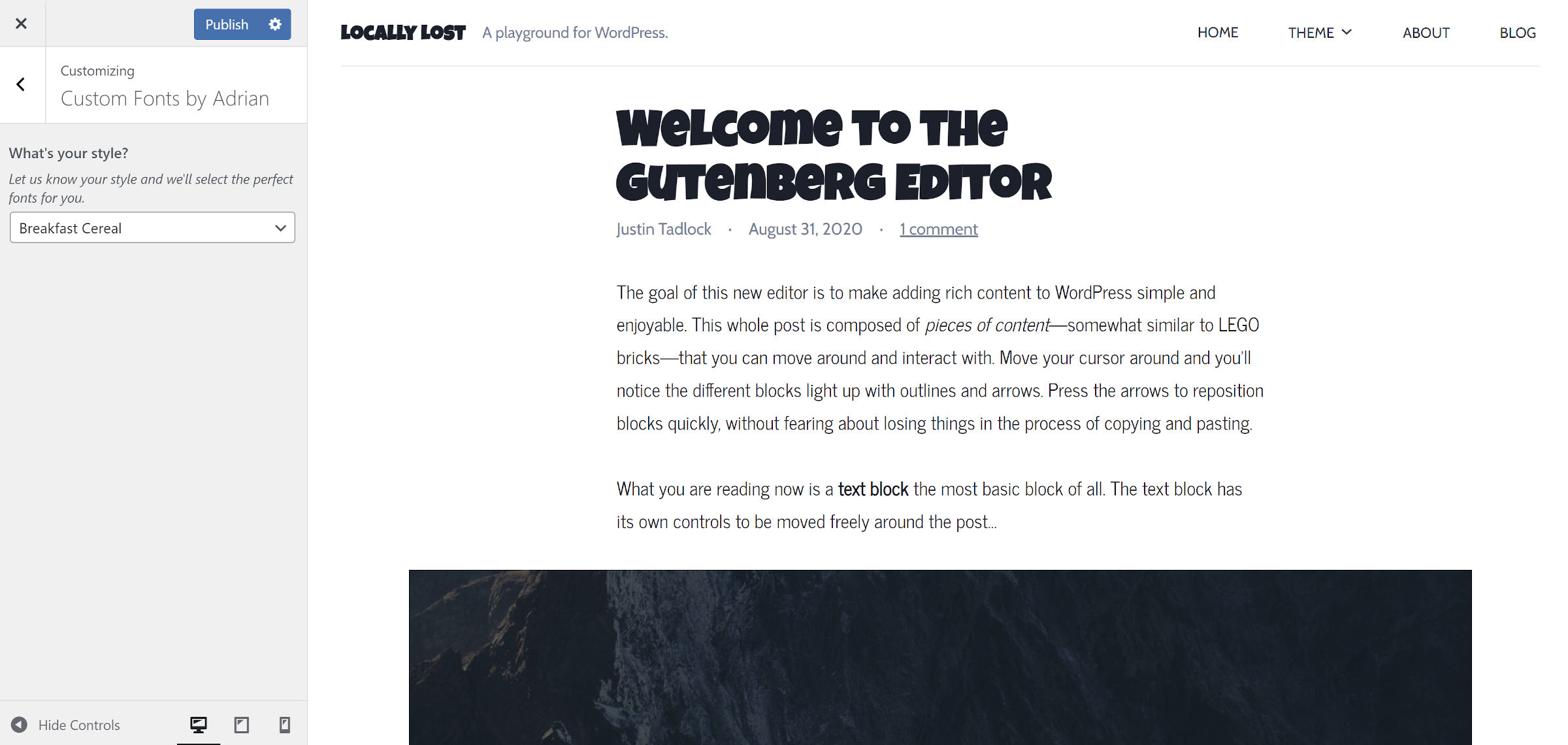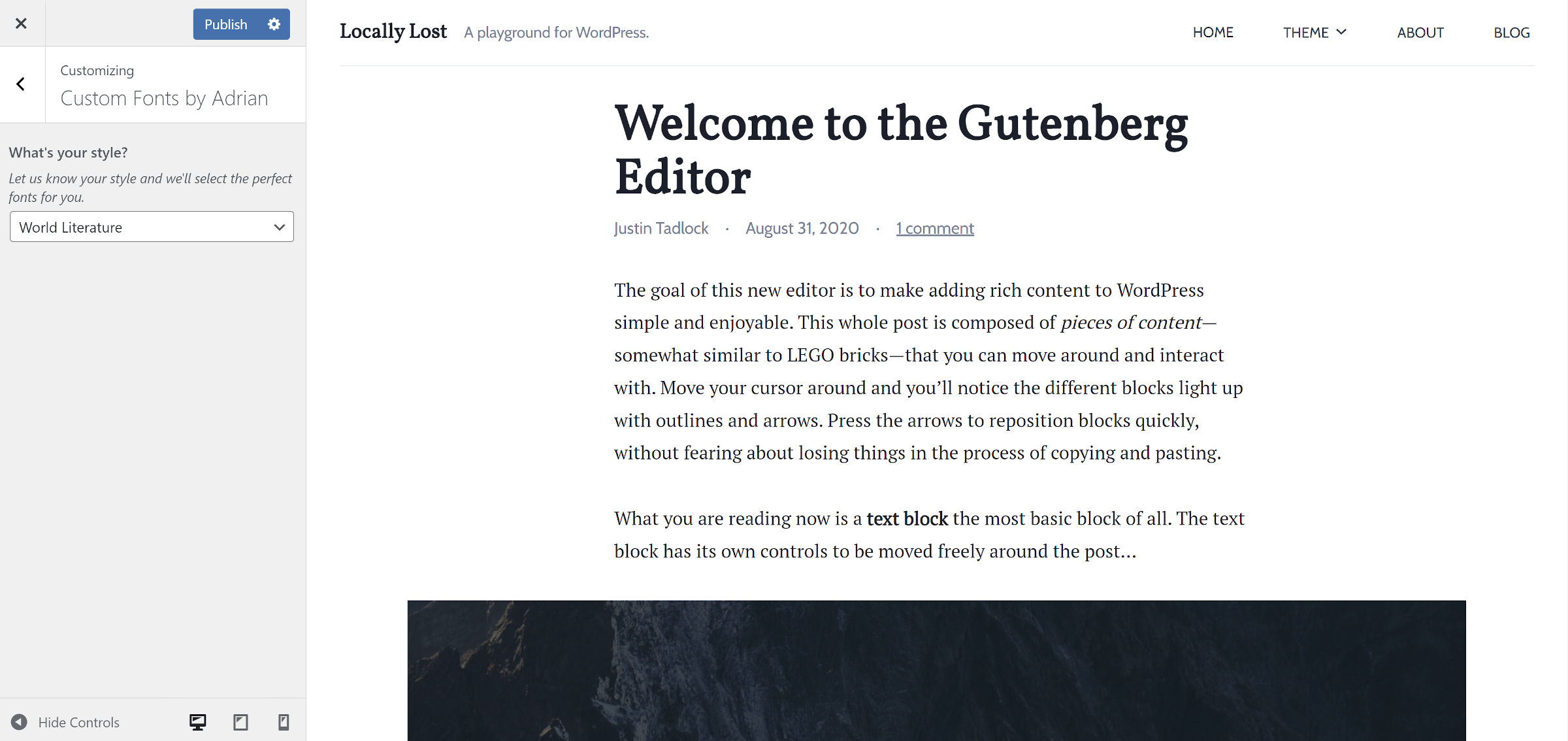
As usual, I am always on the lookout for plugins that allow users to have fun with their websites. I like to mix it up from time to time here on the Tavern and not be all-business-all-the-time. And, that is where the new Adrian plugin comes in. Its goal is to take all of the hard work out of selecting a font pairing for end-users.
The plugin derives its name from Swiss typeface designer Adrian Johann Frutiger. The plugin author, who wishes to remain anonymous, said the typographer was one of their favorites.
“All plugins have such serious names stuffed with SEO keywords, and I just wanted something fun,” they added.
Adrian is essentially a font selector. However, instead of picking each font for various theme elements, users can select from curated pairings. And, taking it one step more, it provides unique names for all of them.
For example, the Breakfast Cereal (yes, that is the actual name) option uses the big and bold Luckiest Guy font for headings alongside News Cycle for body copy.
Bold headings with sans-serif font pairing in the WordPress theme customizer.
Breakfast Cereal font option.
If nothing else, the plugin is simply a treat to test because of its fun names. With options like Cherry Soda, Cowboy, and Hollywood Lights, it adds a little flavor to the entire process.
“I think there are lots of people who would rather you hand them an option rather the ability to make the decisions themselves,” said the plugin author. “No one in their right mind looks at the 1.2K fonts in Google Fonts and says, ‘I can’t wait to pick a font pairing.’ It’s overwhelming and out of most people’s depth.”
Even as a former full-time theme designer, this could be a tedious job. I would often spend hours tinkering with pairings, attempting to find the right personality for a design.
The plugin takes most of that work and boils it down to a little more than three dozen options.
There is a little something for everyone. For example, if you want a retro gaming feel, the Insert Coin pairing of the pixelated Press Start 2P font for headings and Roboto Mono for text can bring a little nostalgia to your site.
Retro-gaming style font pairing in the WordPress theme customizer.
Insert Coin retro-gaming font pairing.
The plugin is built on top of the WordPress customizer. It adds a single section and control for selecting the font pairing.
A downside to this might be for users currently running a block theme alongside the Gutenberg plugin. Menu links to access the customizer screen are hidden. However, there is still a button on the Themes admin screen, at least for now.
Themes screen when using a block theme, highlighting the still-available Customize button.
Customize button for the active theme.
One of the things I like about the plugin is that it does not ruin body copy. Far too often, such systems try to get too fancy with text for longer-form content, and they utterly fail. Instead, Adrian keeps this in check. The fonts that veer into the wilder territory are limited to headings.
The plugin is not all fun and games. It has its serious side too. The World Literature option that pairs Vollkorn and PT Serif is elegant, creating an enjoyable reading experience.
Serif-style font pairing in the WordPress theme customizer.
World Literature font pairing.
The Novella option is similar, replacing Vollkorn with EB Garamond.
The most irritating thing about the plugin is that it requires a full refresh of the customizer preview panel each time the user selects a new font. This is par for the course, though. Most themes and plugins I have tested for WordPress have never utilized the customizer to its fullest potential.
With minimal JavaScript and the Web Font Loader script, the plugin could load the chosen font on the fly. It would make the experience much smoother. However, because the customizer is going the way of the dinosaur, I would use my time and effort to focus on a solution geared toward Full Site Editing.
Success may vary from theme to theme. Typically, I use a three-font system with most of my theme design work. One font family for headings, one for body copy, and another for secondary text. While the plugin worked well enough to overrule the first two, it failed to alter the third. This is not necessarily Adrian’s fault because it does not know the class name it must target in this instance.
This is also the reason I favor design-related features falling squarely on the shoulders of theme authors. I like the forward-thinking of the plugin author — tackling font decisions in a way that does not overload end-users with seemingly infinite choices. However, I would rather see the system coming from the theme.
The plugin author is not quite ready to go that route yet. “I imagine that this can be ported pretty easily to the new FSE interface if I happen to get enough users to keep it going,” they said. “Finding someone who knows the new system and is a freelancer is next to impossible, so I thought why not test the idea the old way.”
For now, the plugin does its job pretty well, and most users still rely on the customizer. There is still plenty of time to figure out the rest.